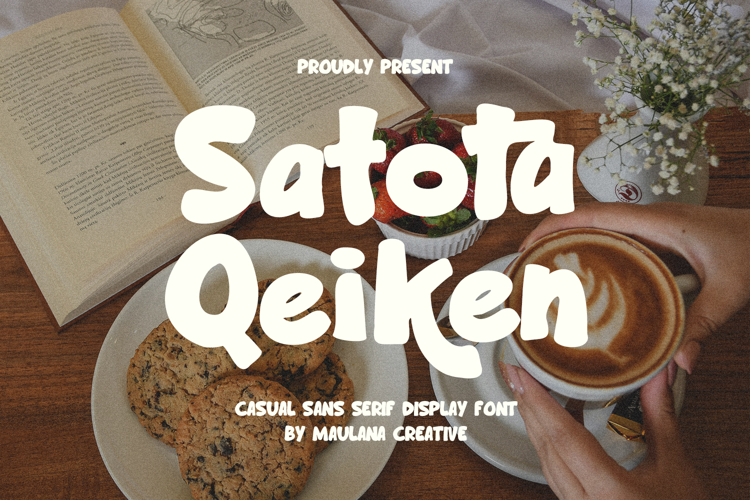
Satota Qeiken Casual Sans Serif Display Font
Satota Qeiken - Casual Sans Serif Display Font
Bring a dash of fun and a whole lot of charm to your designs with Satota Qeiken!
This unique casual sans serif font offers a chunky, friendly, and bouncy feel, making it perfect for projects that need to stand out with a playful yet confident voice. Its bold, rounded shapes are highly legible and instantly appealing, capturing attention in any medium.
Satota Qeiken is the go-to font for:
- Branding and Logos: Create memorable and approachable brand identities for cafes, bakeries, children's products, casual apparel, and more.
- Packaging Design: Give your product packaging a handcrafted, artisanal touch that leaps off the shelf.
- Social Media & Advertising: Make your posts and campaigns pop with engaging headlines and vibrant call-outs.
- Merchandise: Perfect for mugs, motivational, and any design needing a bold, statement-making typeface.
- Kids' Products & Books: Its friendly aesthetic is ideal for educational materials, toys, and storybooks.
Key Features:
- Full Set of Glyphs: Includes uppercase, lowercase, numbers, and extensive punctuation.
- Multilingual Support: Reach a wider audience with support for various international languages (as shown in the example images).
- Pinch of Personality: The slightly irregular, hand-drawn look adds authenticity and warmth.
- Versatile: Equally effective in large display sizes and for shorter, impactful text.